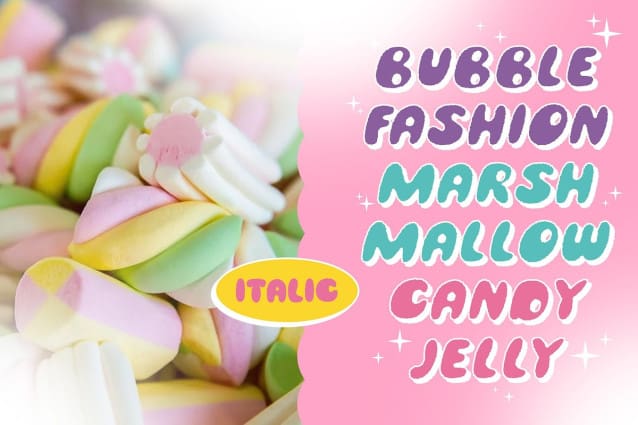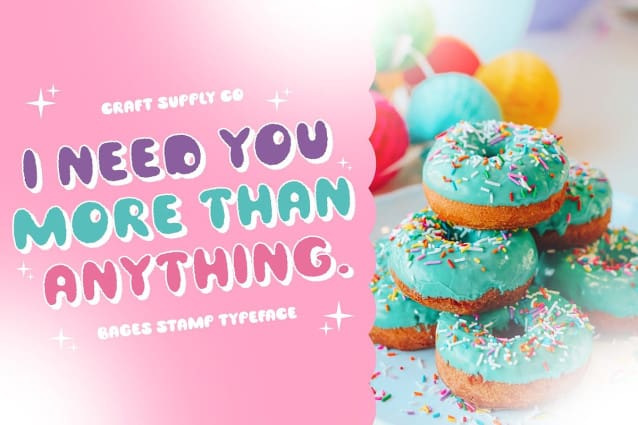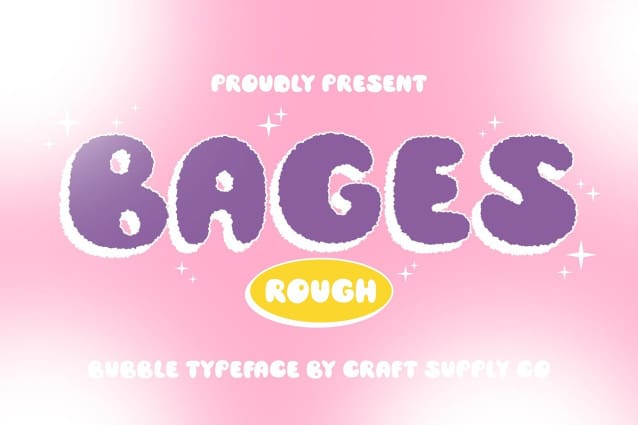
Bages Rough Font
Bages Rough Font : Playful Bubble Display Font, inspiration from playful balloons, featuring bubbly shapes that add a whimsical touch to any design. Its rounded forms evoke a sense of fun and light-heartedness.
Fuzzy and Cute With its rough texture, This font takes on a charmingly fuzzy display appearance, reminiscent of fluffy clouds or soft feathers. This unique effect enhances its cuteness factor, making it irresistible for display purposes.
Versatile Display Potential Designed for versatility, This font is a perfect choice for a wide range of display applications. From children’s book covers to party invitations, its bubbly and fuzzy aesthetic adds a delightful flair to any project.
Eye-Catching and Memorable The distinctive look of This font ensures that your message stands out from the crowd. Its playful charm and textured appearance leave a lasting impression, making it memorable for viewers.
Fun and Fuzzy Display Font This font offers a delightful combination of playful bubble shapes and fuzzy texture, inspired by the whimsy of balloons. Its versatility and eye-catching appeal make it the perfect choice for adding a touch of fun to any display project. Dive into the world of Bages Rough and let your creativity soar.